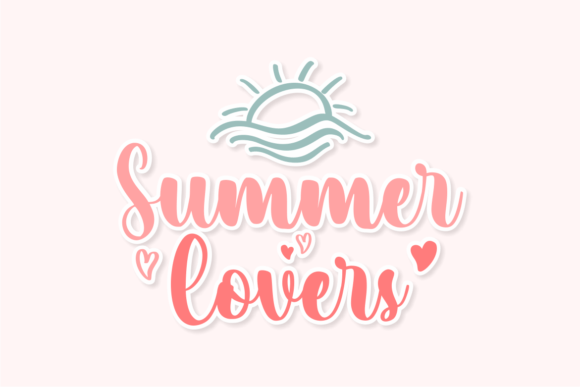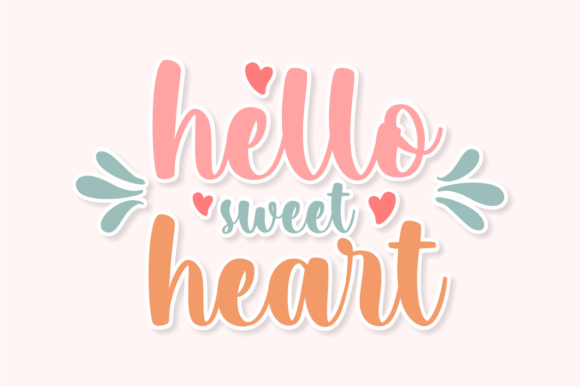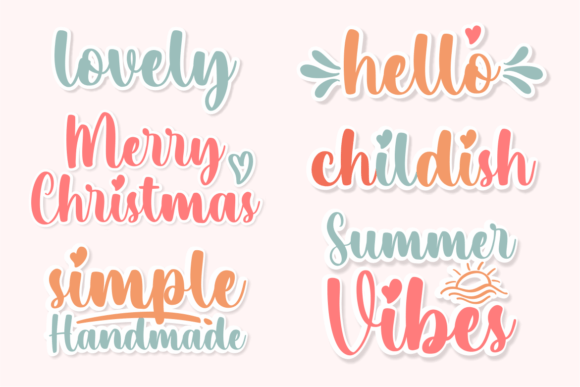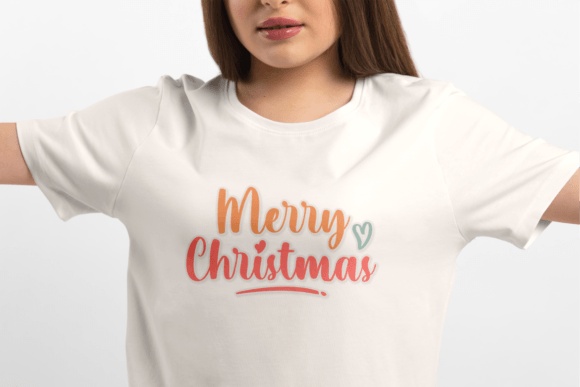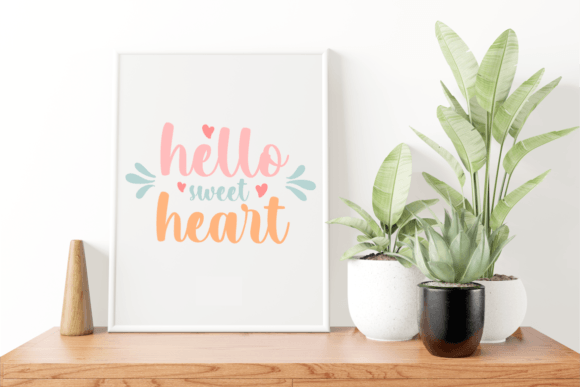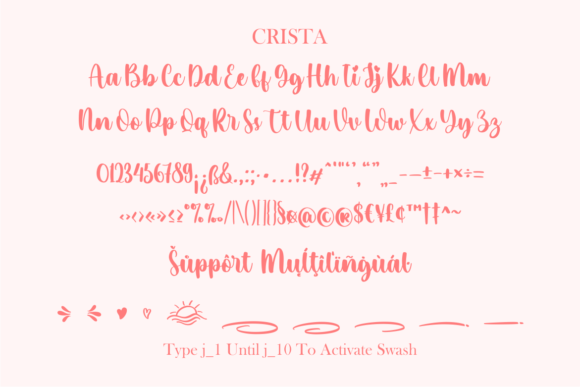
Introducing Crista Font: The Ultimate Handwritten Font for Creative Projects
Are you a designer, crafter, or DIY enthusiast looking for a font that can add a touch of elegance and whimsy to your creations? Look no further than Crista Font, a delicate, cute, and stylish handwritten font that’s perfect for a wide range of applications. From greeting cards to headlines, wedding themes to Christmas decorations, Crista Font is the perfect addition to any project.
What Makes Crista Font So Special?
Crista Font is a unique and versatile font that’s designed to elevate any creation. Its delicate and stylish handwritten script makes it perfect for adding a touch of sophistication and elegance to your designs. Whether you’re creating a greeting card, a wedding invitation, or a social media graphic, Crista Font is sure to impress.
Applications of Crista Font
Crista Font is suitable for a wide spectrum of applications, including:
- Greeting Cards: Add a personal touch to your greeting cards with Crista Font’s delicate and stylish script.
- Headlines: Make your headlines stand out with Crista Font’s bold and eye-catching design.
- Wedding Themes: Create beautiful and elegant wedding invitations, decorations, and favors with Crista Font.
- Christmas Decorations: Add a touch of festive cheer to your Christmas decorations with Crista Font’s whimsical design.
- Birthdays: Create personalized birthday cards and decorations with Crista Font’s playful script.
- Quotes: Highlight your favorite quotes with Crista Font’s stylish and elegant design.
- Stickers: Create custom stickers with Crista Font’s cute and playful design.
- Overlays: Use Crista Font as an overlay on images to add a touch of elegance and sophistication.
Why Designers and Crafters Love Crista Font
Designers and crafters love Crista Font for its versatility and ease of use. Here are just a few reasons why:
- Easy to Read: Crista Font is clear and easy to read, making it perfect for body text and headlines.
- Highly Versatile: Crista Font can be used for a wide range of applications, from formal to informal projects.
- Customizable: Crista Font can be customized to fit your project’s unique needs and style.
- Time-Saving: Crista Font saves designers and crafters time and effort, allowing them to focus on other creative tasks.
Tips for Using Crista Font
Here are a few tips for getting the most out of Crista Font:
- Pair with Other Fonts: Pair Crista Font with other fonts to create a unique and visually appealing design.
- Use for Headlines and Titles: Use Crista Font for headlines and titles to add a touch of elegance and sophistication.
- Add Decorative Elements: Add decorative elements, such as flourishes and swashes, to enhance Crista Font’s design.
Crista Font is a delicate, cute, and stylish handwritten font that’s perfect for designers, crafters, and DIY enthusiasts. Its versatility, ease of use, and elegant design make it suitable for a wide range of applications, from greeting cards to headlines, wedding themes to Christmas decorations. Whether you’re looking to add a touch of sophistication or whimsy to your creations, Crista Font is the perfect choice.